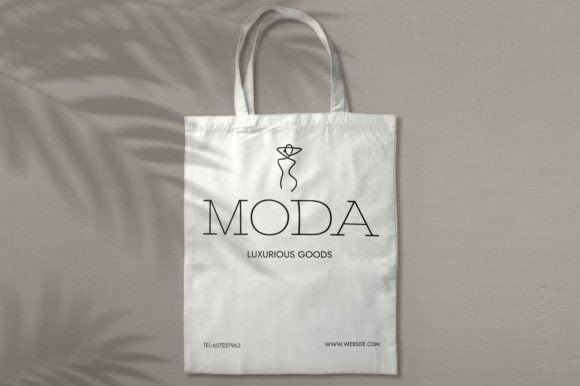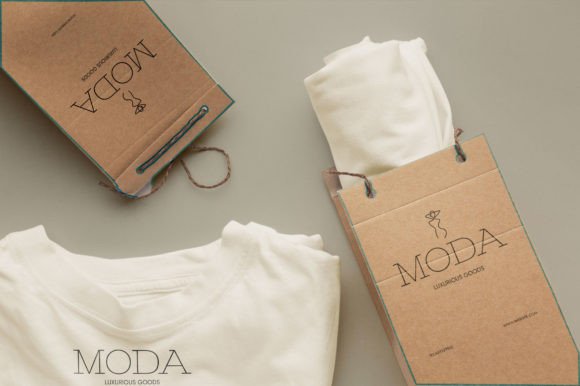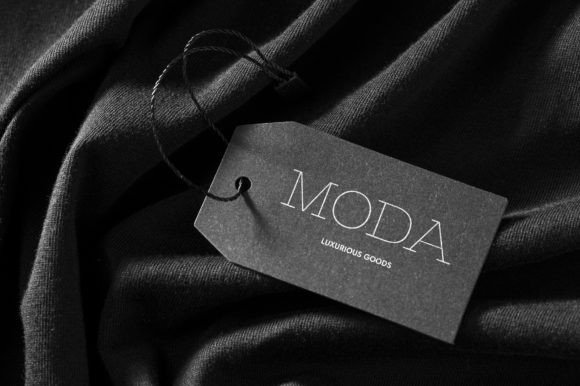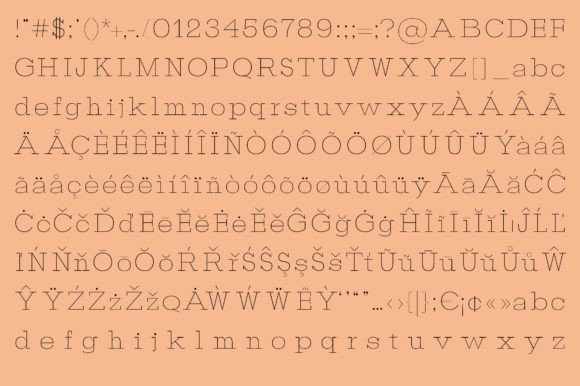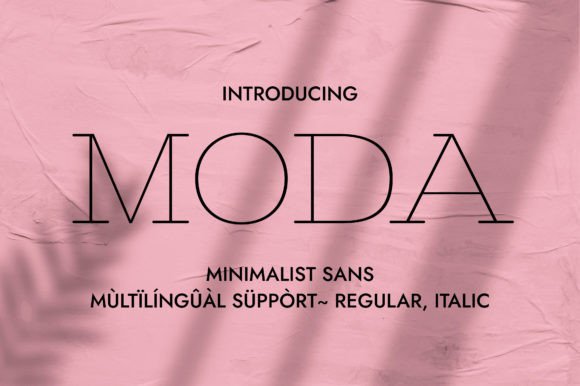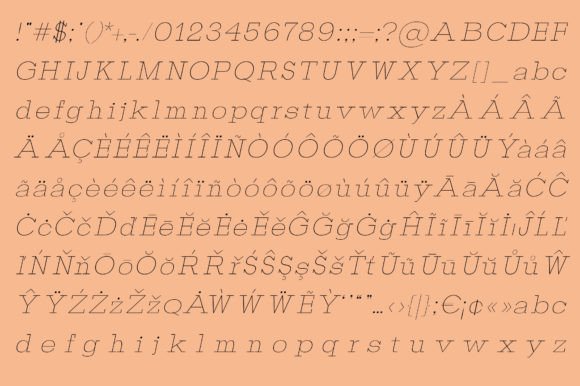
Moda Font
Moda: A Wonderful Thin Slab Serif Typeface
Moda, as the name suggests, is a wonderful thin slab serif typeface. Its unique glyphs construction renders it a valid choice when it comes to designing a serious project which requires a delicate touch, clean look, and elegant note. Use it in your packaging design, perfume design, or fashion design presentation, and you will notice how much power it holds inside every glyph.
Key Features of Moda
• Thin Slab Serif Design: Offers a delicate and refined look suitable for elegant applications.
• Unique Glyph Construction: Features distinctive letterforms that add character and sophistication.
• Clean Aesthetic: Brings a modern and uncluttered feel to designs.
• Versatile Application: Ideal for various design projects requiring elegance and seriousness.
Ideal Uses for Moda
Moda’s unique characteristics make it particularly well-suited for:
When incorporating Moda into your designs, consider these tips:
• Use for headlines or short blocks of text to showcase its delicate and elegant features.
• Experiment with different sizes to highlight the font’s unique glyph construction.
• Utilize its clean aesthetic to create designs that evoke sophistication and modernity.
Moda is an excellent choice for designers looking to add a wonderful thin slab serif typeface to their typographic toolkit. Its ability to bring a delicate touch, clean look, and elegant note to various design projects makes it stand out in the world of typography. Whether you’re working on packaging design, creating perfume branding, or developing presentations for fashion design, Moda offers the perfect blend of sophistication and modernity.
Furthermore, Moda’s unique design allows it to shine in various contexts where a serious yet elegant look is desired. From luxury product catalogs to upscale magazine layouts, this font can elevate your projects with its distinctive style. Its thin yet powerful appearance works particularly well in designs that aim to convey a sense of refinement and premium quality.
In conclusion, Moda is a font that truly captures the essence of elegance and seriousness in modern typography. Its versatility across different high-end applications showcases its adaptability to various creative needs. For those looking to add a touch of sophisticated charm to their work, Moda can enhance themed creations with its distinctive style. It’s the perfect choice for designers seeking to make a refined, stylish impact across a wide range of serious and elegant creative projects.